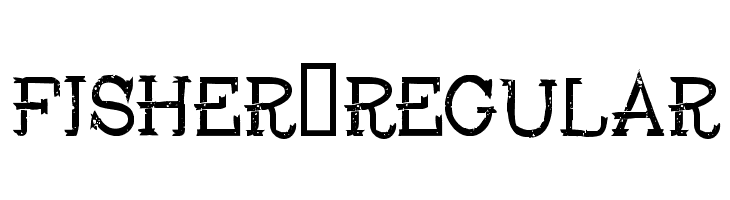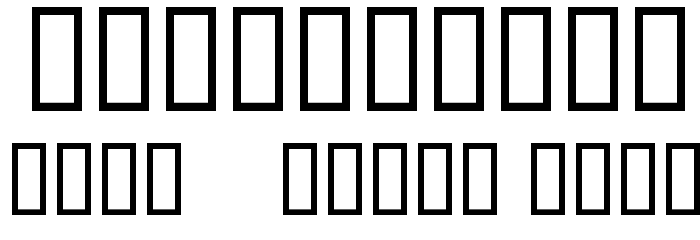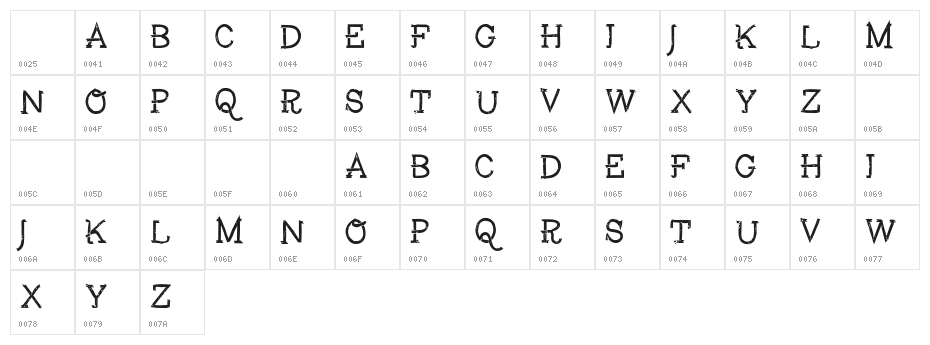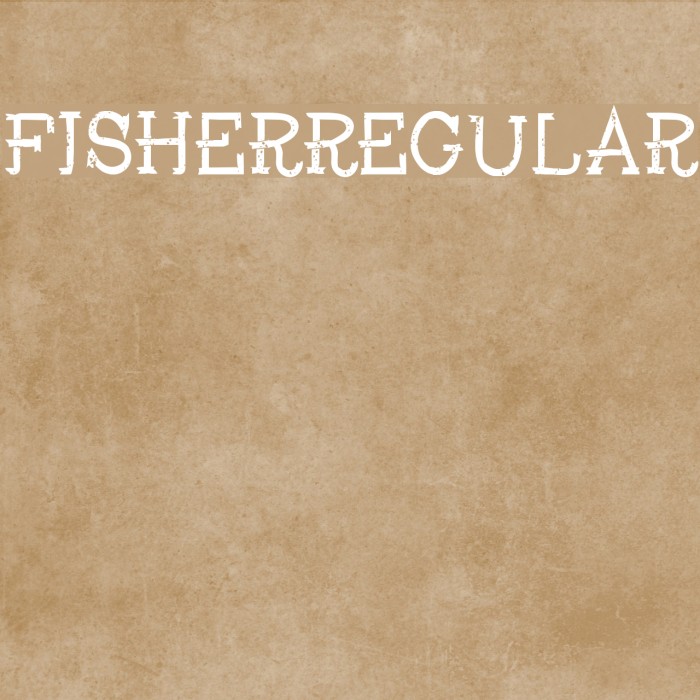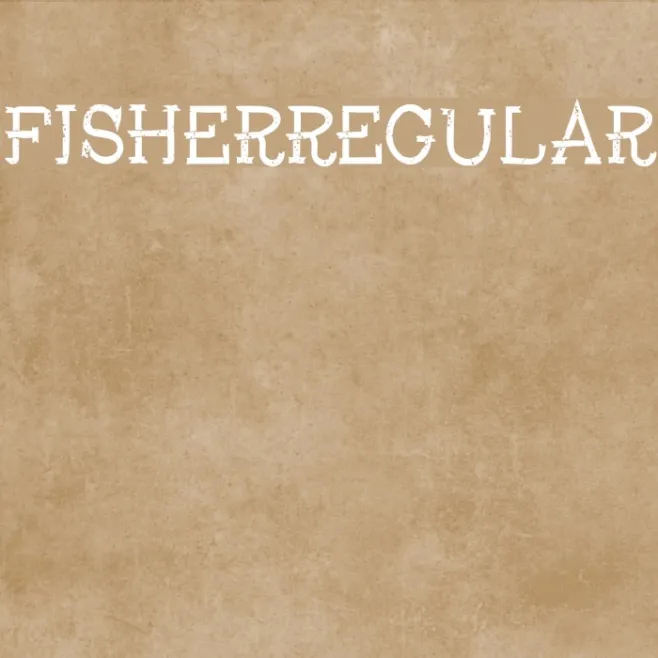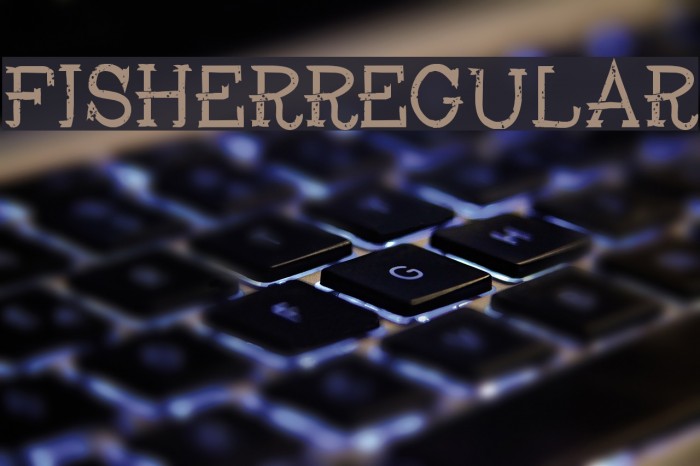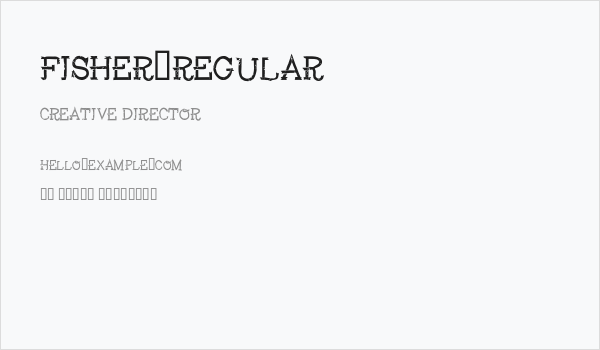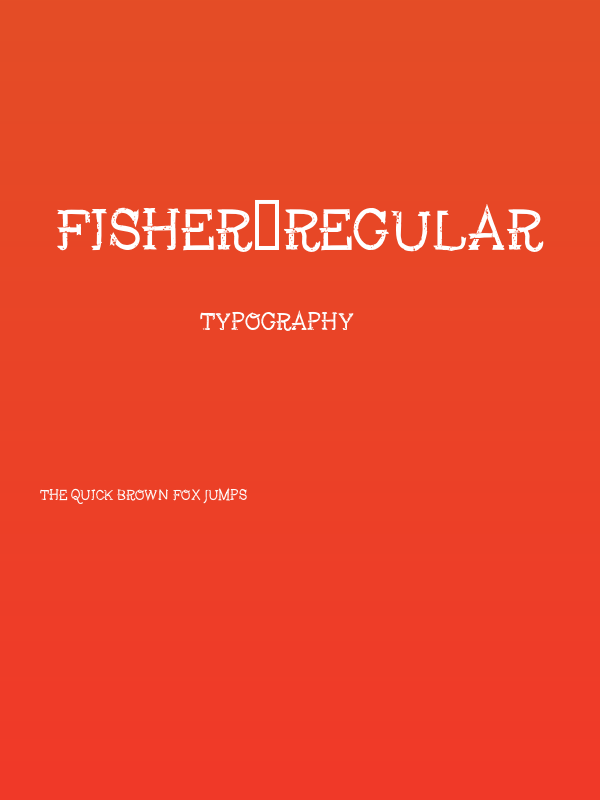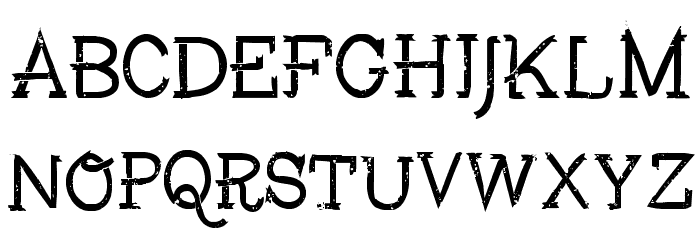
Fisher-Regular Font
Fisher-Regular Description
This font features a distressed, vintage aesthetic with a serif style that gives it a rugged and worn appearance. The characters are bold and have a slightly rough texture, suggesting a hand-crafted or aged look. The uppercase letters are prominent, with sharp serifs and a consistent height, while the lowercase letters maintain a similar style, ensuring readability. The numbers and special characters follow the same design, making them cohesive with the overall theme. This font is ideal for projects that require a rustic or historical feel.
| Use Case | Headlines, Logos, Decorative text |
| Proposed Projects | Perfect for vintage posters, historical-themed designs, rustic branding, and decorative signage. |